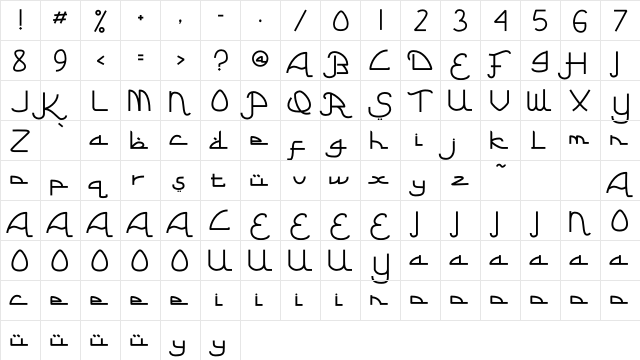
Ramadhan Regular
| Designer | Sigit Dwipa Raharjo |
Design Context for Ramadhan Typeface
Ramadhan is a composed and adaptable typeface that performs quietly and consistently across a wide range of design contexts.